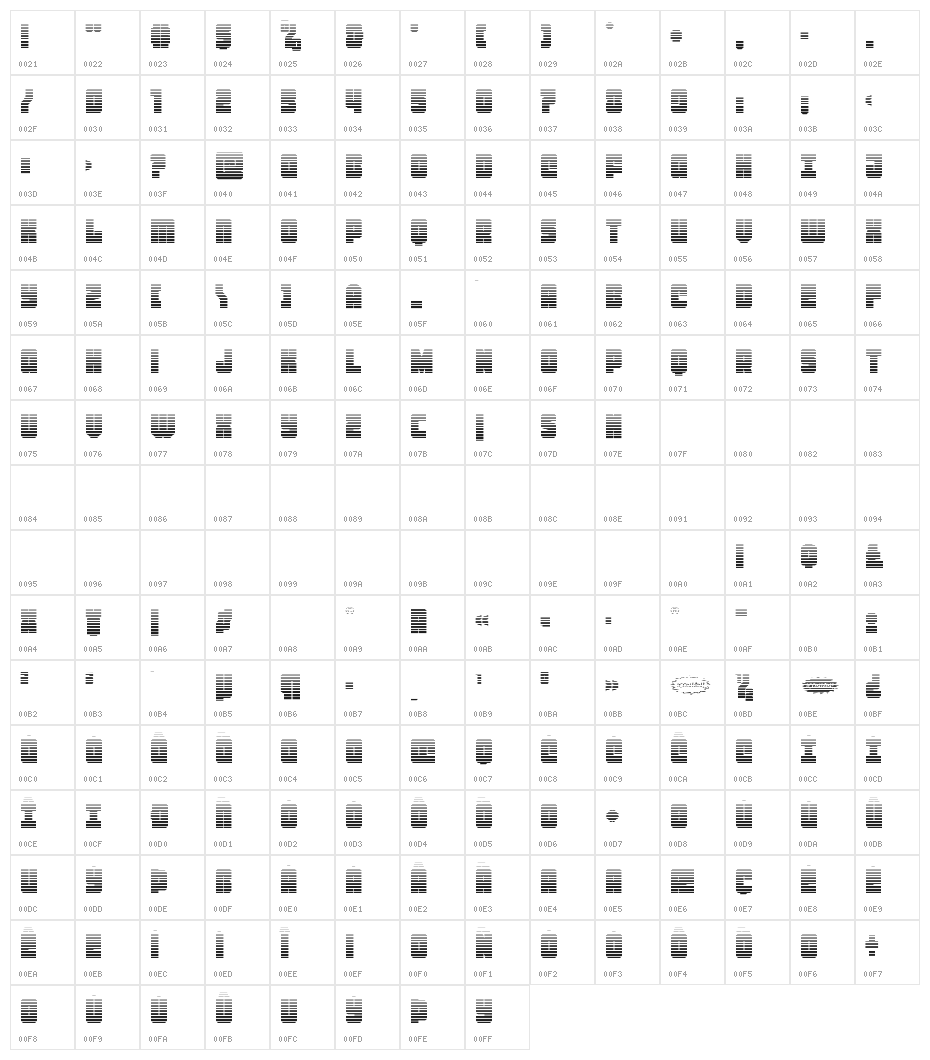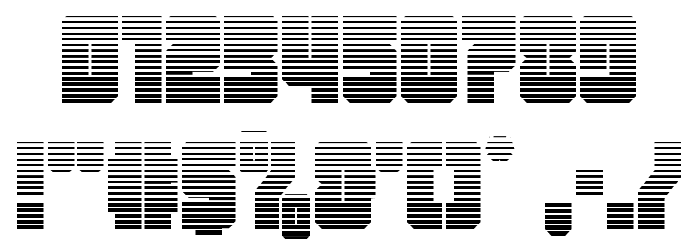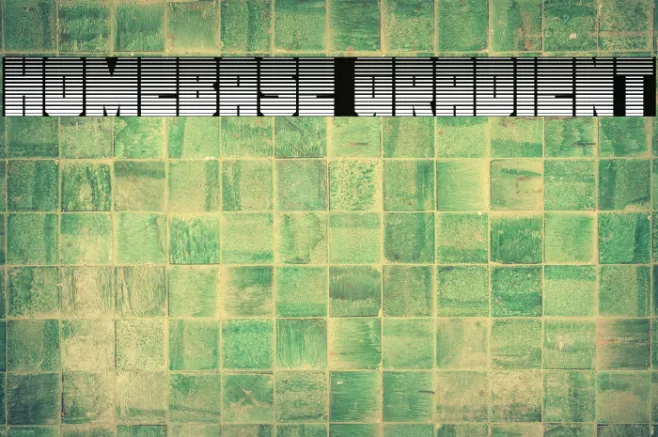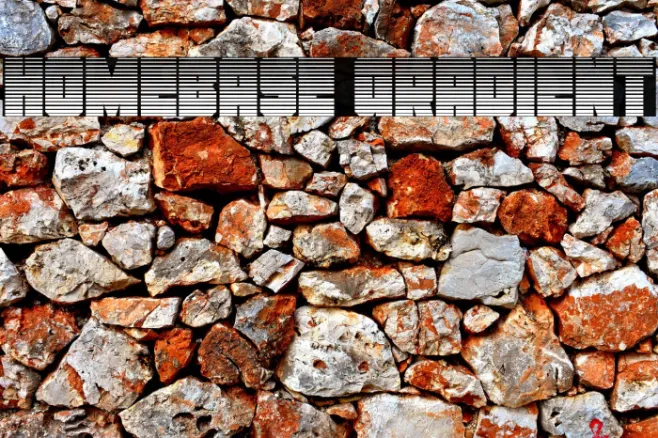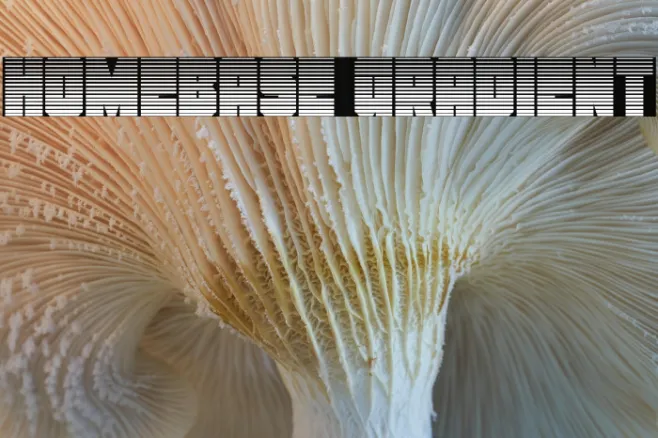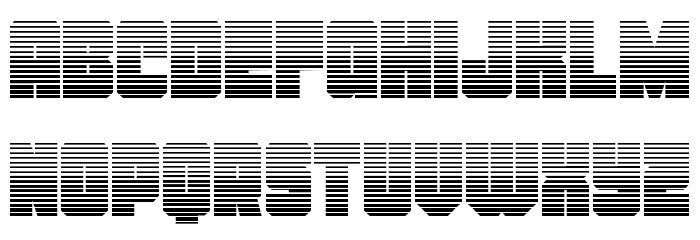
Homebase Gradient Font
Homebase Gradient Description
This font features a bold, geometric design with a unique striped pattern that creates a gradient effect across each character. The letters are constructed with horizontal lines of varying thickness, giving a sense of depth and movement. The uppercase and lowercase letters maintain a consistent style, with sharp angles and a blocky appearance. The numerals and special characters follow the same design principles, ensuring uniformity throughout the typeface. This font's distinctive style makes it stand out, ideal for projects that require a modern and eye-catching look.